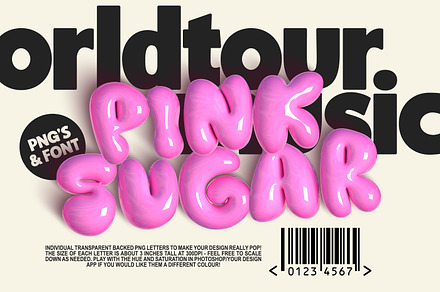
Pink Sugar Letters and SVG Font
A decorative font supplied with an SVG colour version, so the letterforms carry built-in colour and texture rather than a flat fill.
SVG fonts embed full colour artwork in each glyph, meaning a typed word arrives already textured without any manual treatment.
- Built-in colour and texture per glyph
Put it to work on
- Social and campaign graphics
- Childrens and party design
- Packaging and labels
- Merch and print